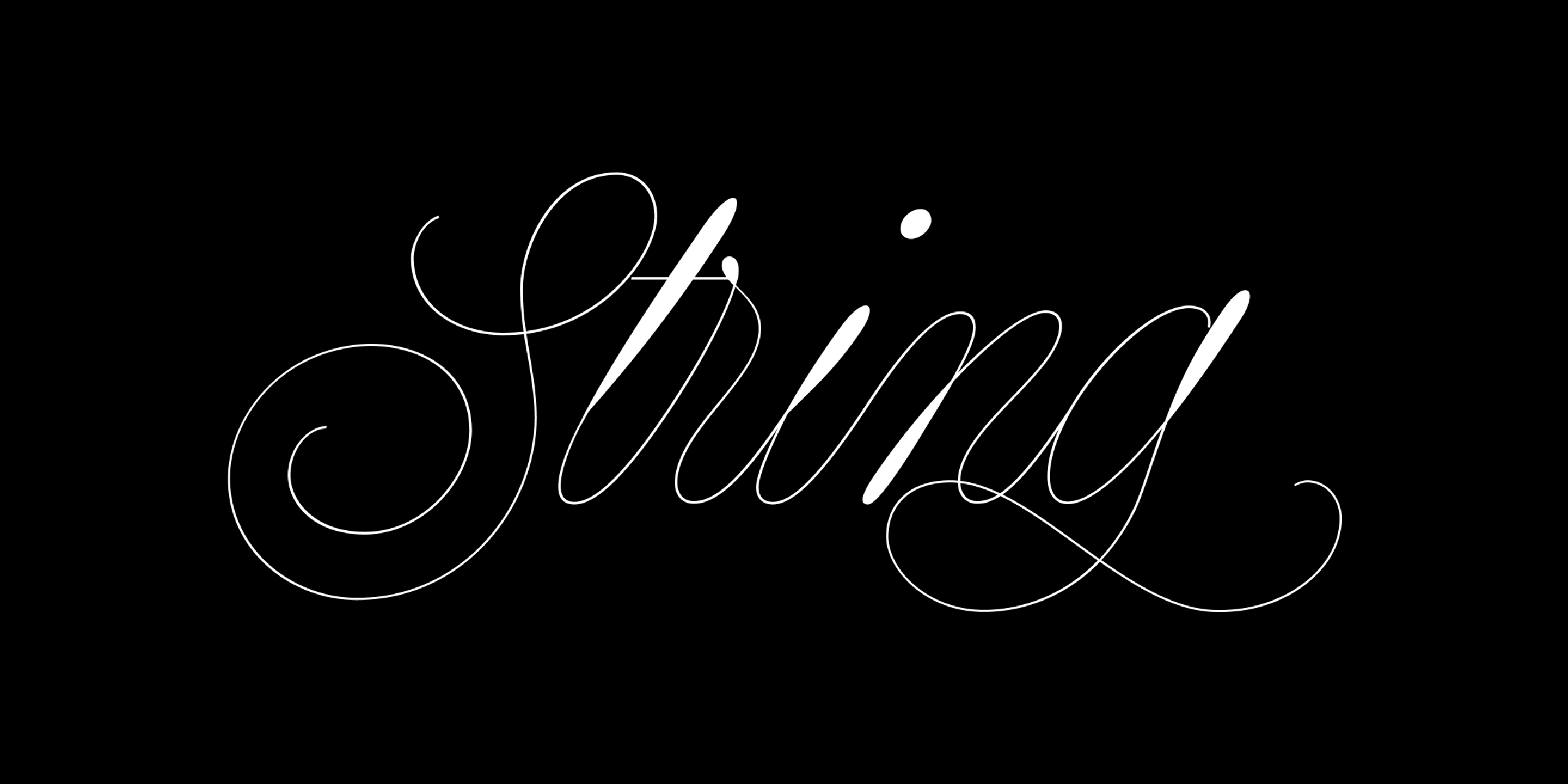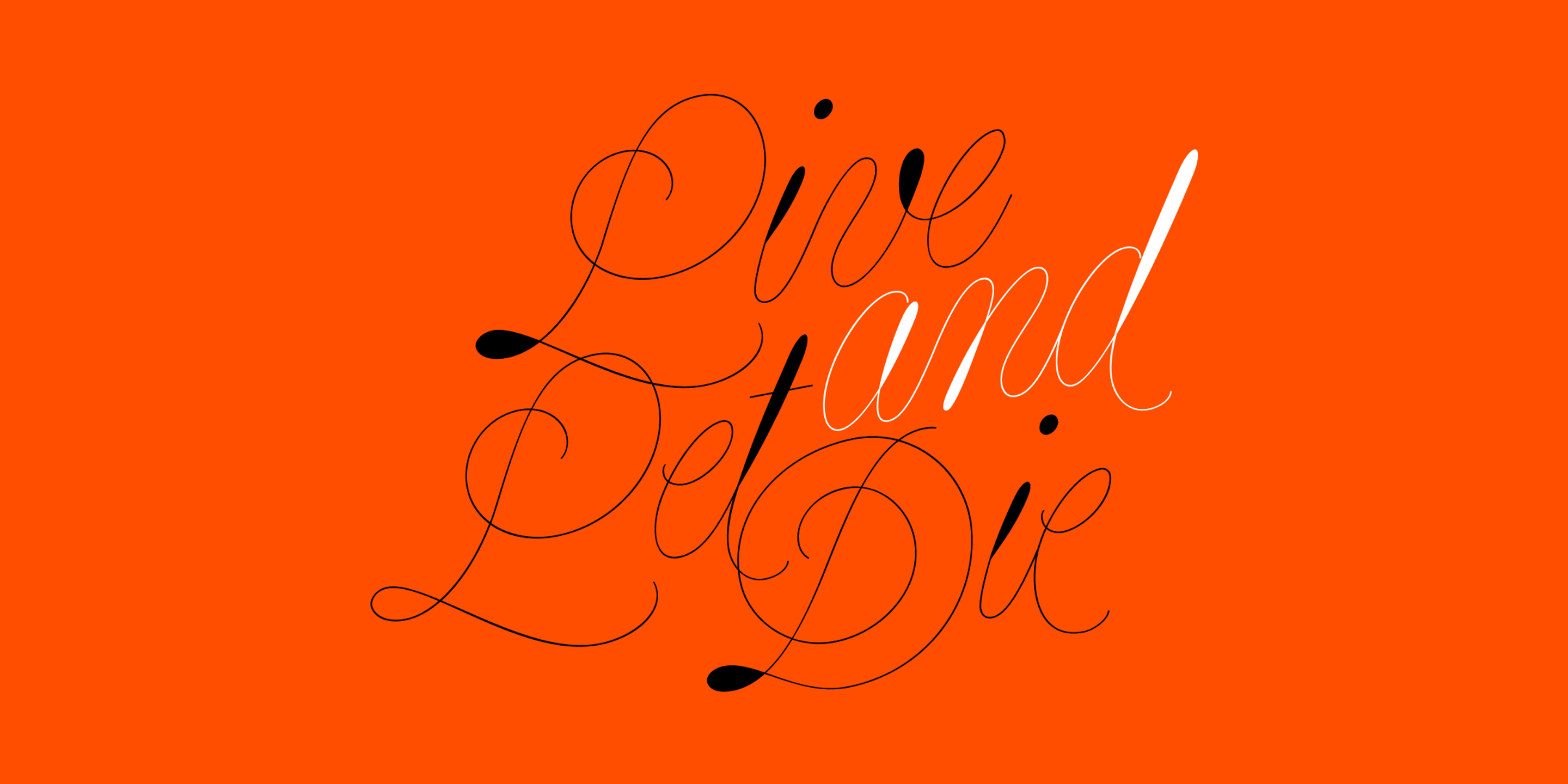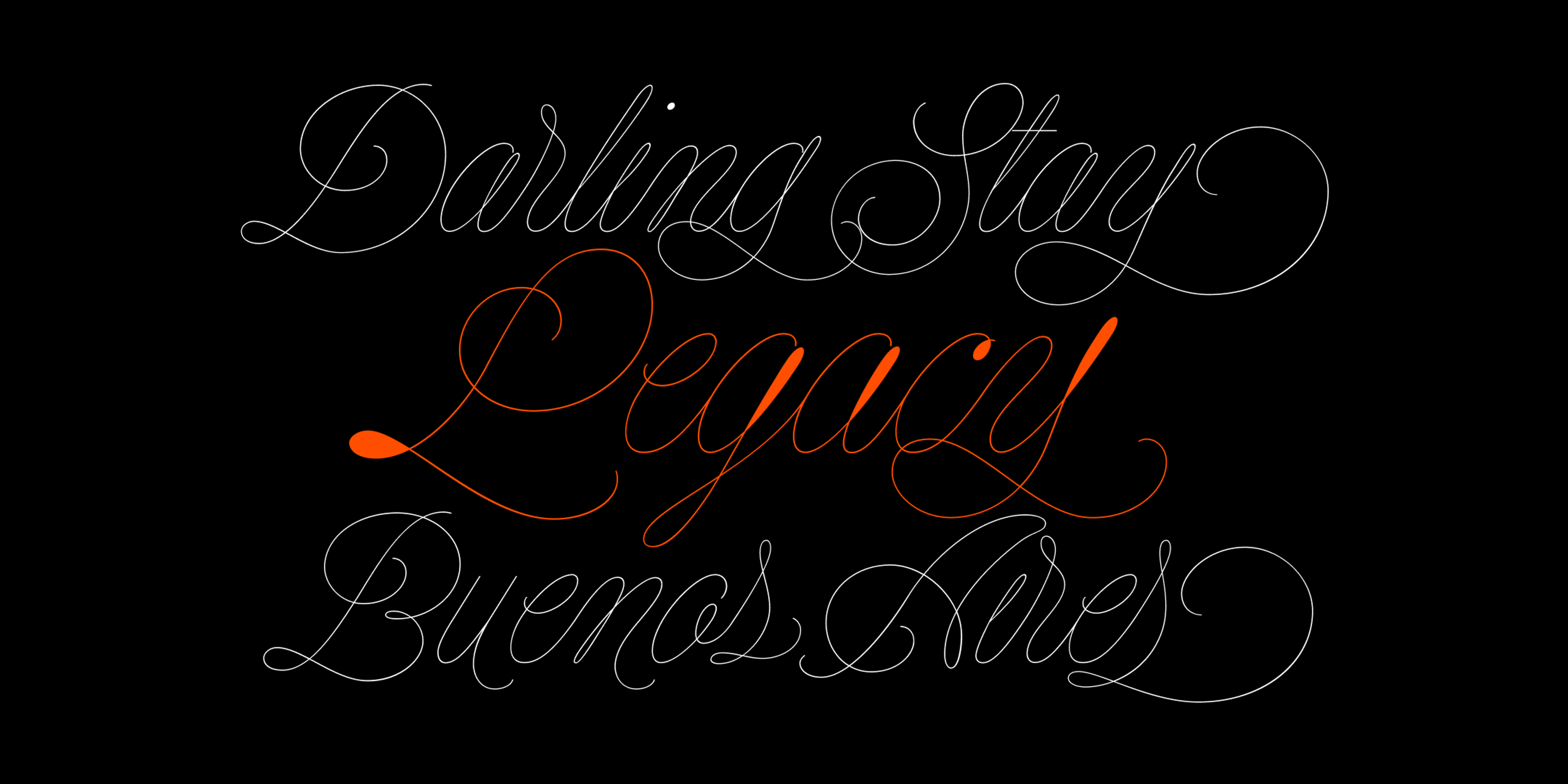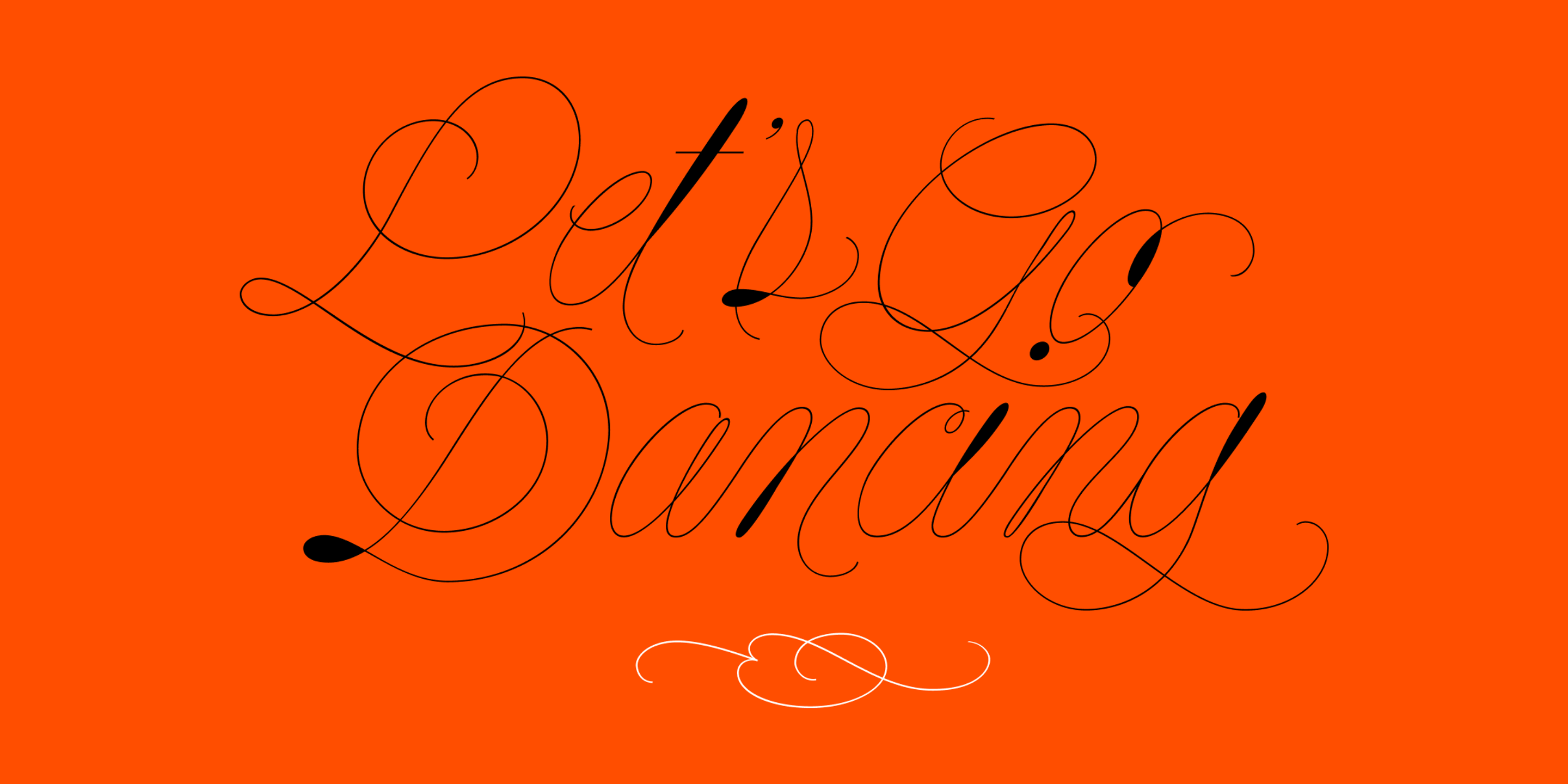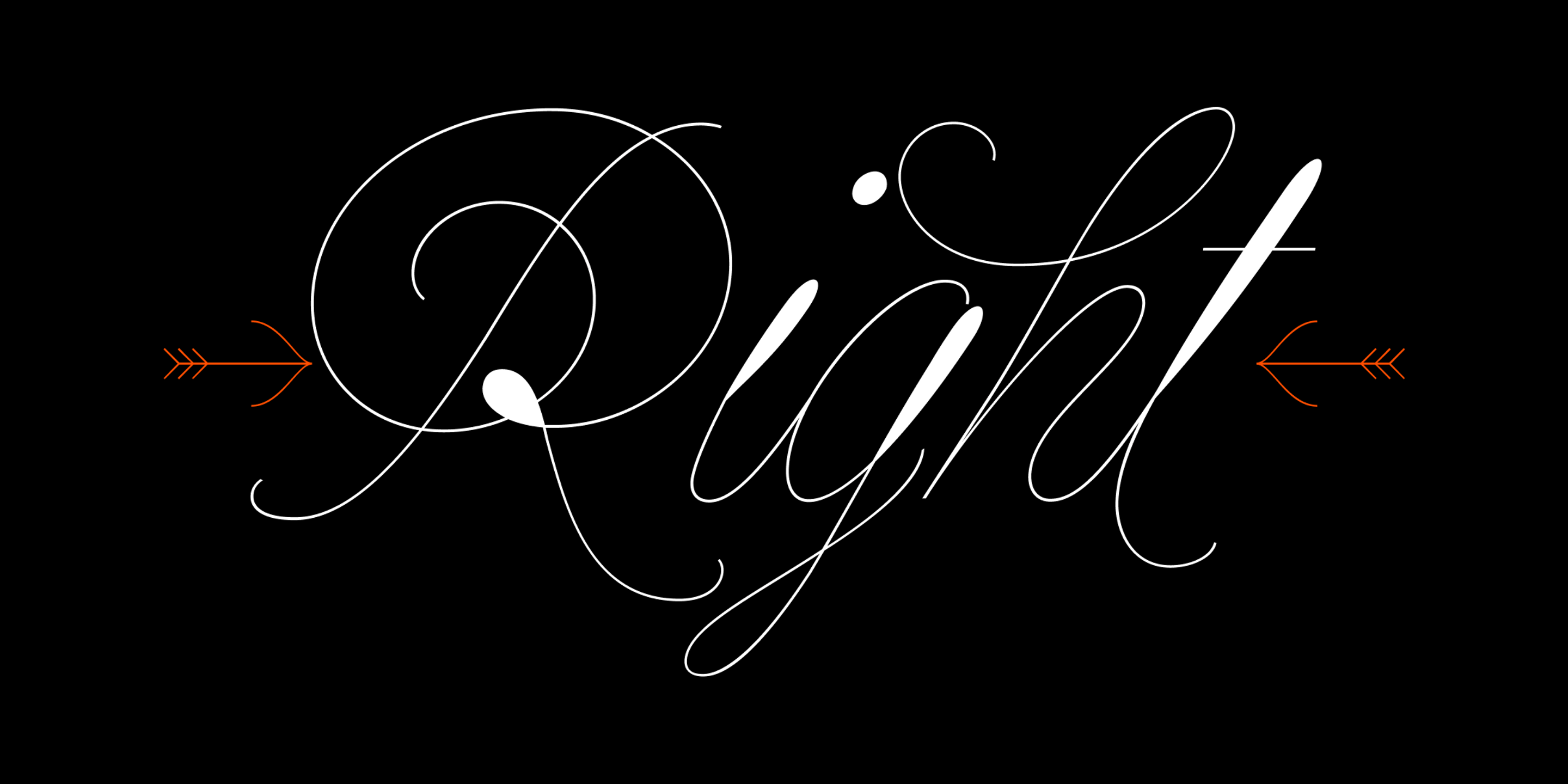
String font by Sproviero Type — the word “String” in a flowing, high-contrast connected script with swash capitals and ascenders
String font by Sproviero Type — the words “Live and Let Die” in a flowing, high-contrast script, with “and” in white and the rest in black
String font by Sproviero Type — the words “Darling Stay” and “Buenos Aires” in white monoline script, and “Legacy” in orange monoline script with a filled orange dot on the ‘L’ stem
String font by Sproviero Type — the words “Let’s Go Dancing” in a flowing, high-contrast script, with a decorative flourish below
String font by Sproviero Type — the word “Right” in a flowing, high-contrast connected script, with orange arrows pointing to it from either side
String Hole
The quick brown fox jumps over the lazy dog.
String Line
The quick brown fox jumps over the lazy dog.
About the font
String Details
String is a monoline script full of melodic grace — elegant, flowing, and impossibly airy. Inspired by Spencerian forms, harp strings, and the sound of an acoustic guitar, it weaves delicate curves into continuous, lyrical strokes. Use String Line, or the daring String Hole, to add contrast or rhythm. Perfect for display typography! Used in magazine spreads, luxury packaging, fashion advertisements, and even layered over photography, String brings softness, structure, and subtle musicality.
• Common Ligatures
• Discretionary Ligatures
• Fractions
• Ordinal Numerals
• Ornaments
• Stylistic Alternates
• Stylistic Sets
• Swashes